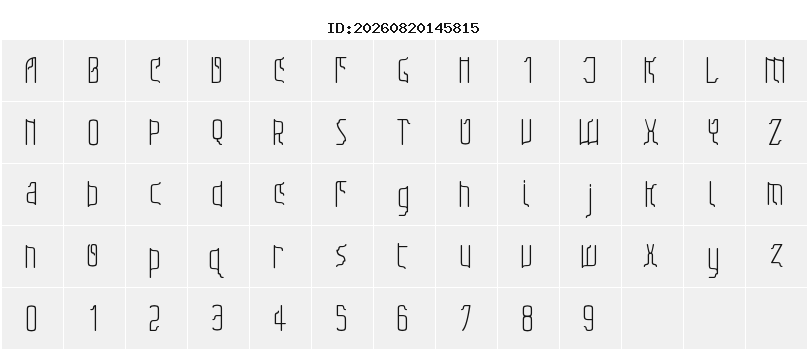
Sfilth Preview
• Font Name: Sfilth
• Full Font Name: Sfilth
• Version: Version 1.00 November 18, 2007, initial release
About Sfilth.ttf
Sfilth.ttf is a modern, elegant sans-serif font designed for ultimate readability and visual harmony. Perfect for branding, headlines, web design, and print materials.